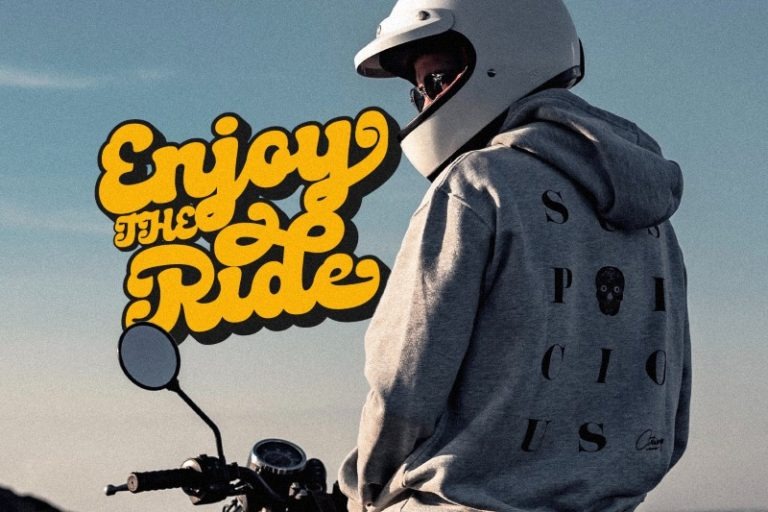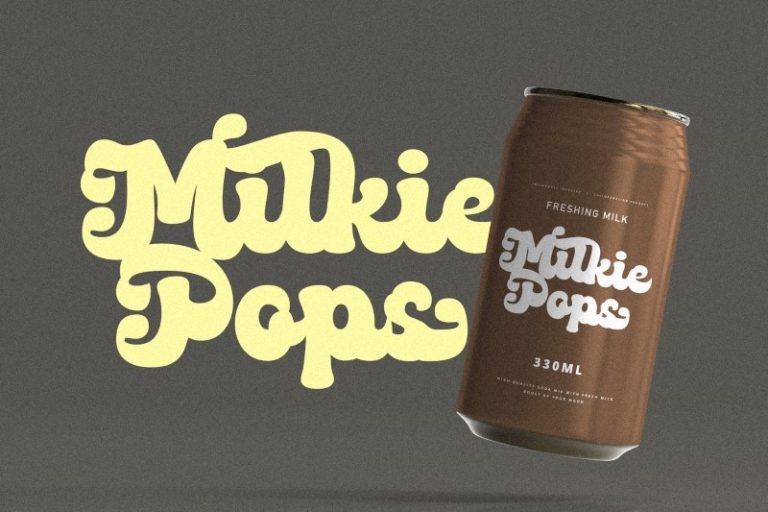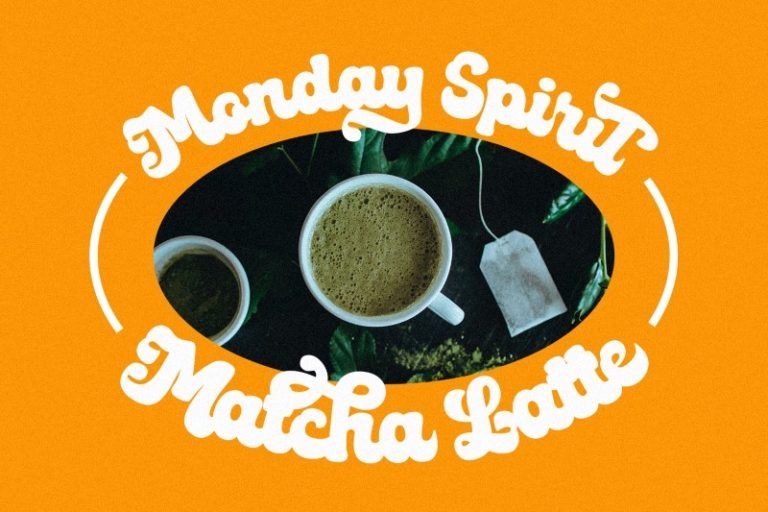
Medyan Font
Medyan Bold Script Font
This font is a retro bold script which will bring you back to 60s feel. Made from font designer named Din Studio. This font features thick and angular letters that easy on the eyes and nice to look while it’s also easy to read. Medyan Script becomes more special with extruding version option. Perfect to create amazing headings, logos, menus, social media graphics, and many more.